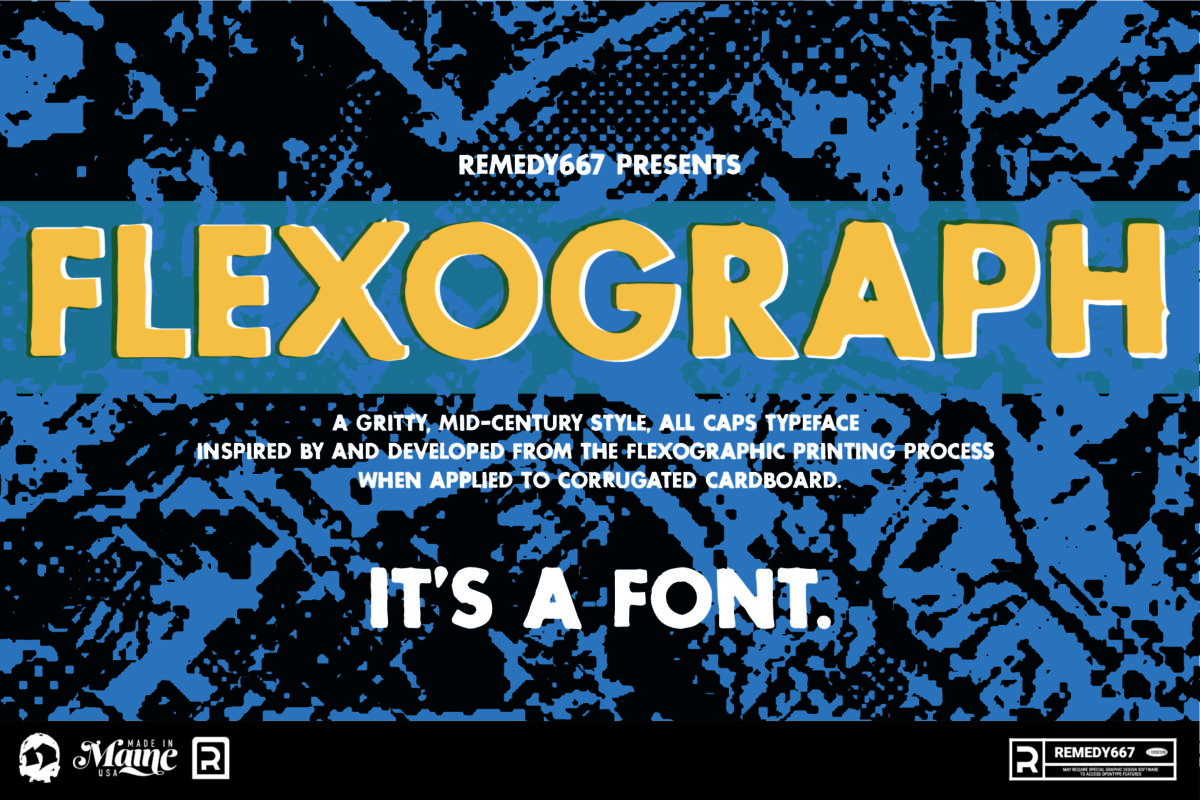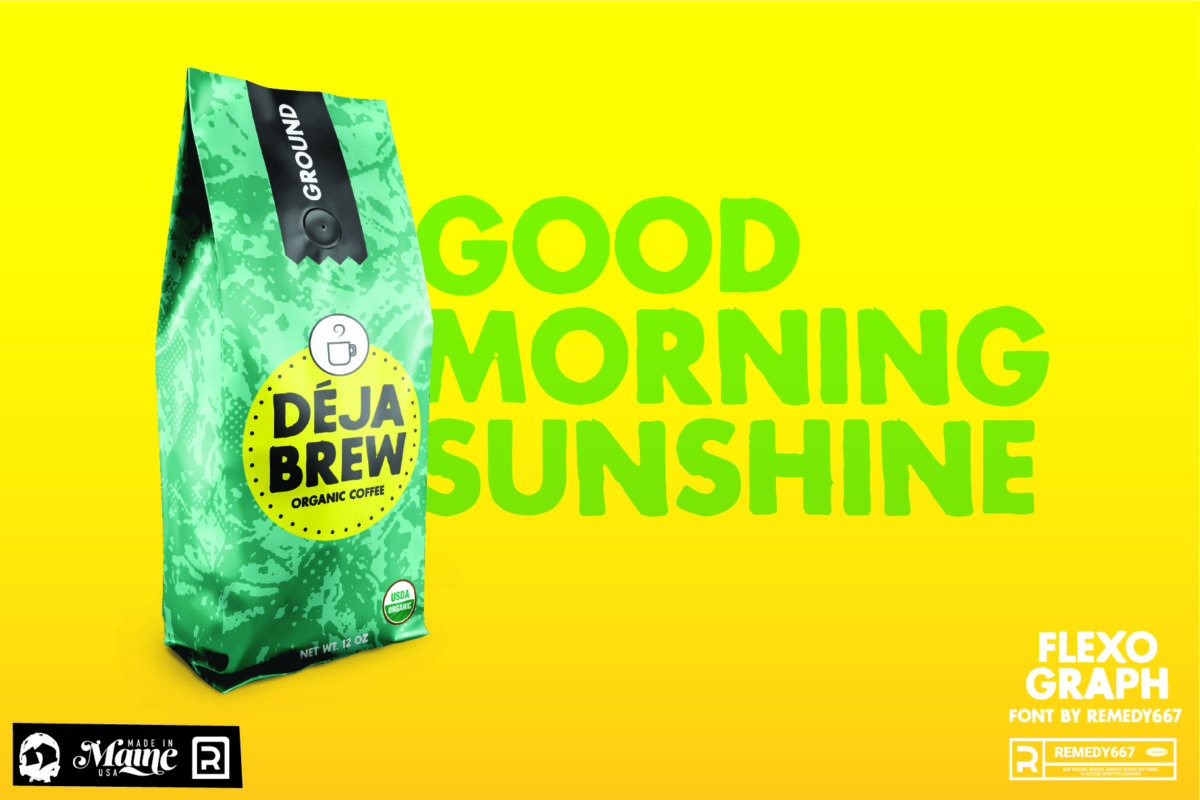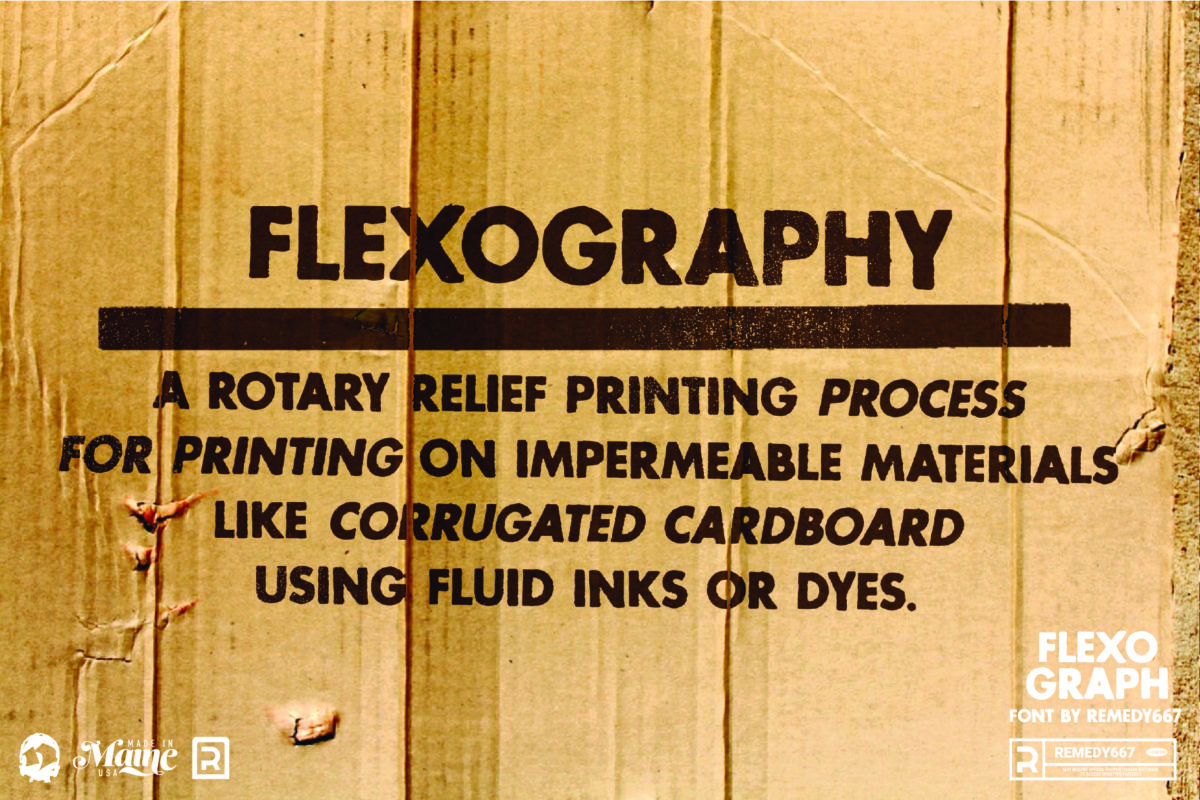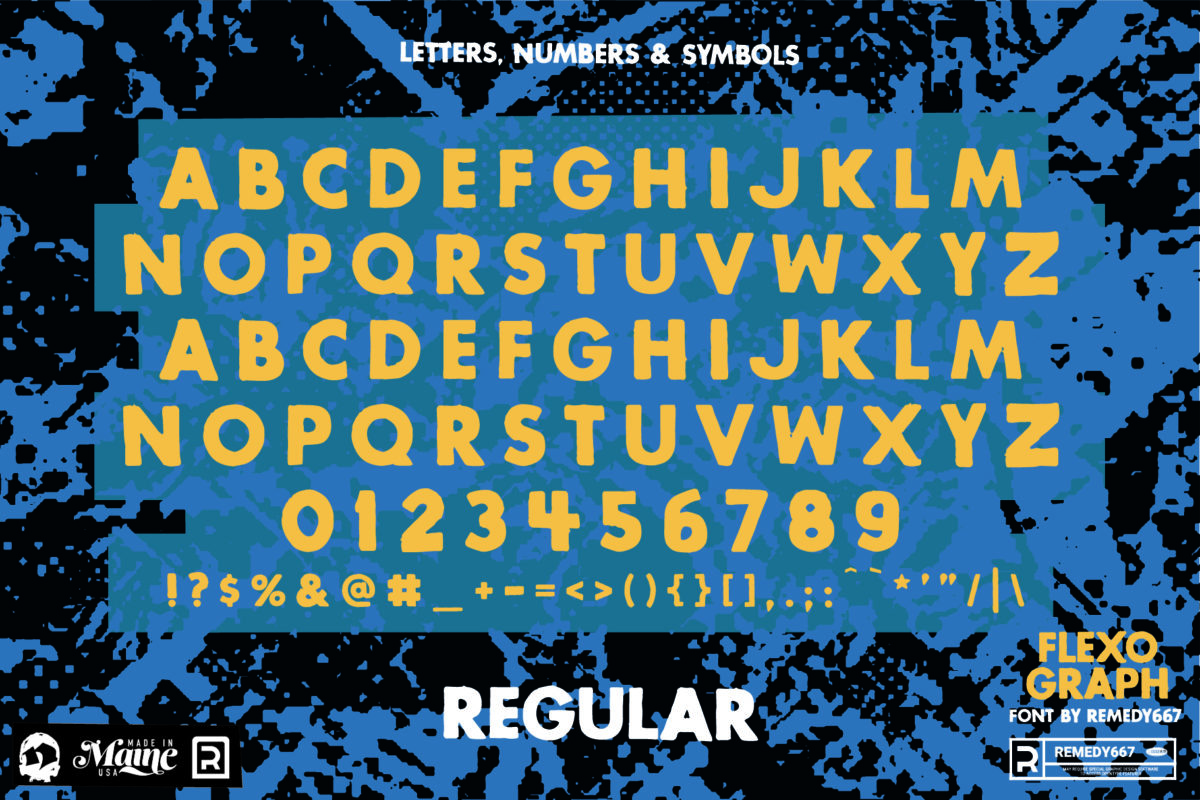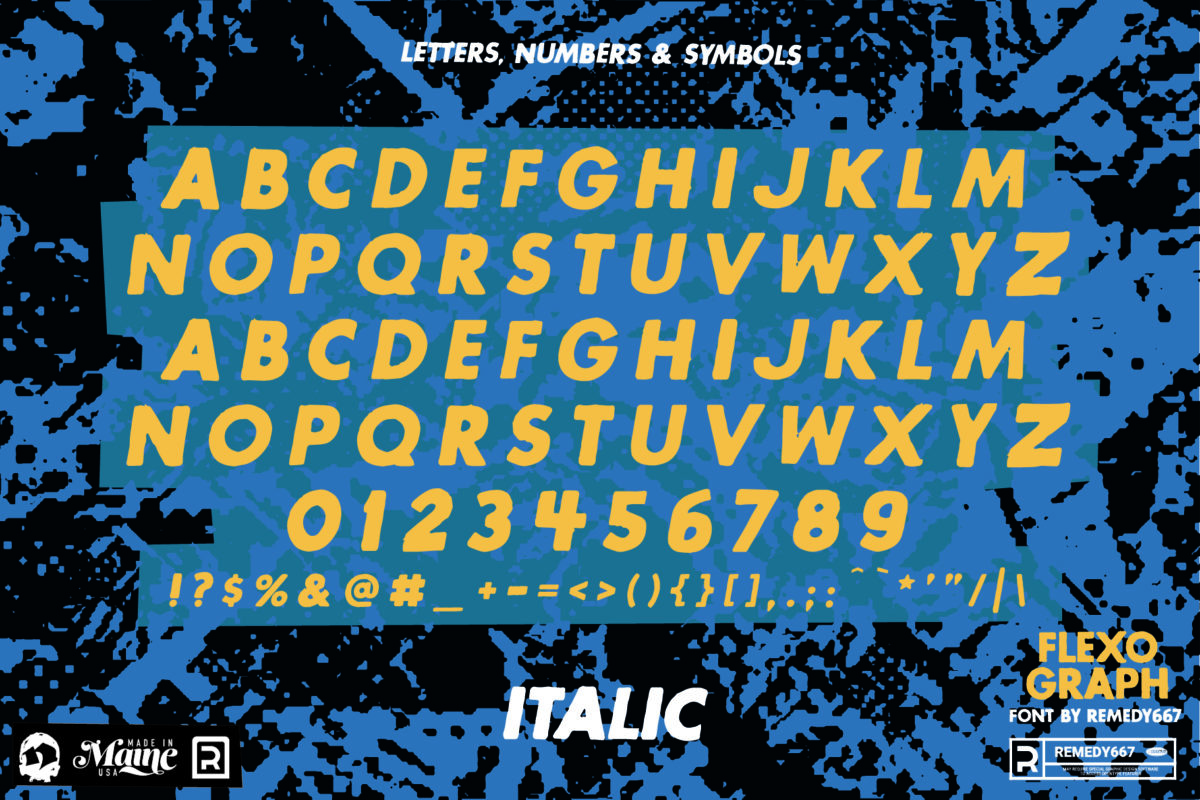
Flexograph
We wanted a typeface that was as versatile as a piece of corrugated cardboard. So we made one. Flexograph is a sans-serif all-caps typeface that’s perfect for posters, headlines, and short texts of all kinds.
Flexograph is a typeface designed to mimic the aesthetics of flexography printing. Stop holding back your creative ideas and unleash them with Flexograph. The typeface is all caps, meaning you’ll never have to worry about upper & lowercase letters clashing again.
• Bold, eye-catching design to grab the attention of customers.
• Creative design that doesn’t compromise on readability.